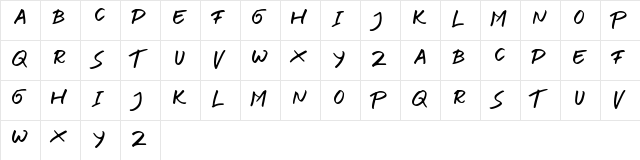
SURENDER Regular
| Designer | AMINMARIO STUDIO |
Design Context for SURENDER Typeface
SURENDER is a composed and adaptable typeface that performs quietly and consistently across a wide range of design contexts.